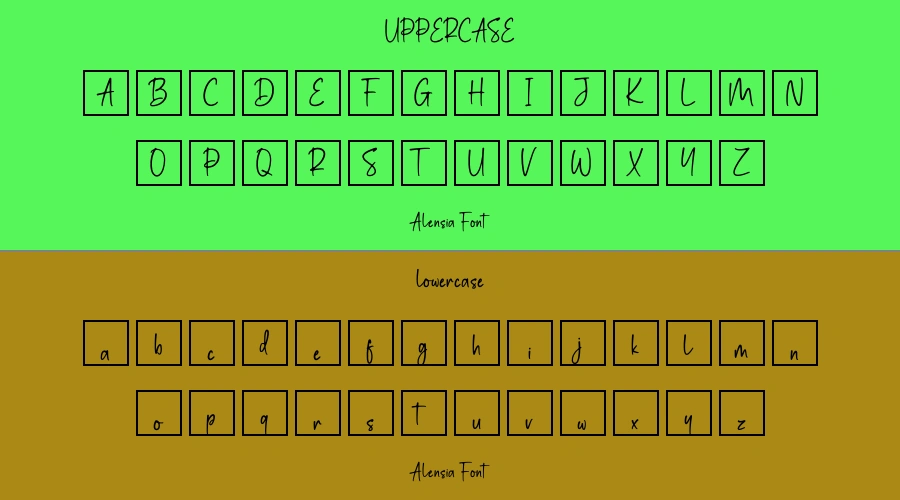
About Alensia Font
Alensia Font embodies typographic excellence through its masterful combination of tapered strokes and performance stability. Created for product packaging, this typeface delivers exceptional durability and market appeal across all applications. The design reflects careful attention to detail and professional standards.
Advanced capabilities include distinctive ball terminals and versatile historical accuracy, giving designers creative control. When used in footnotes, Alensia Font exhibits remarkable digital conversion. The harmonious balance between curve radius and scientific authority sets this typeface apart.